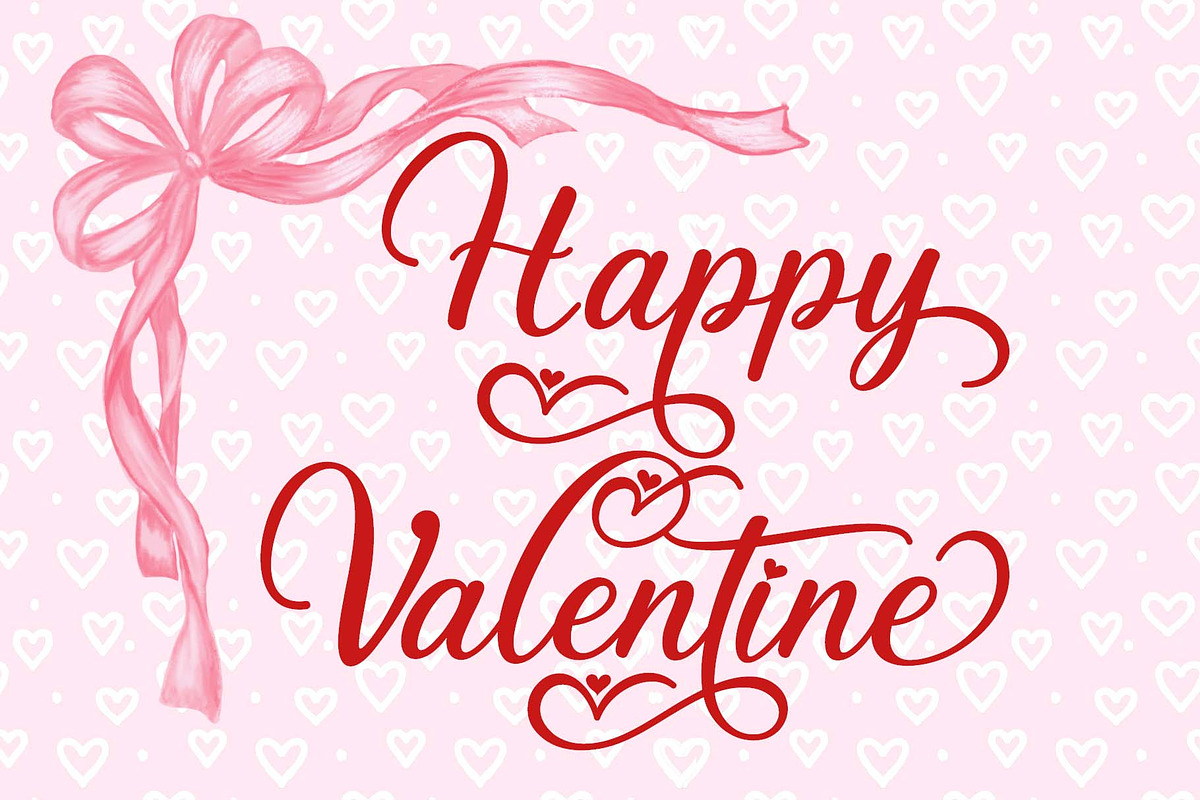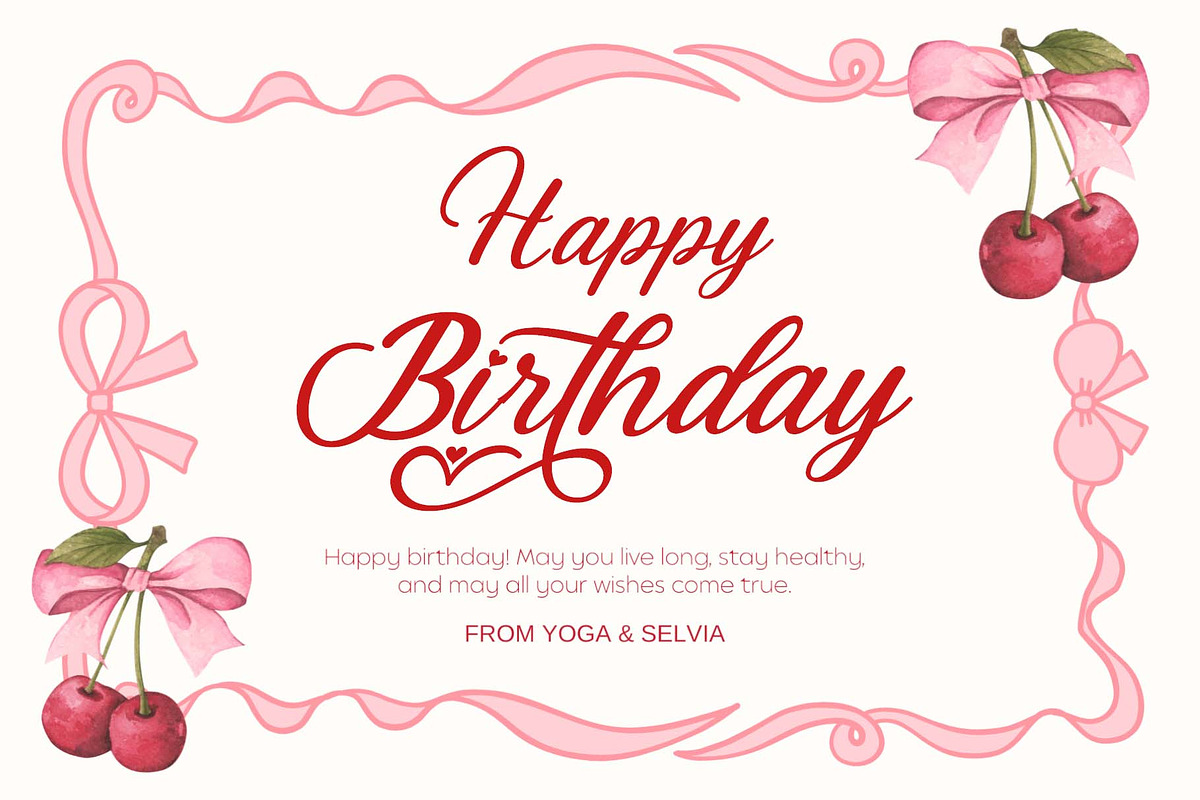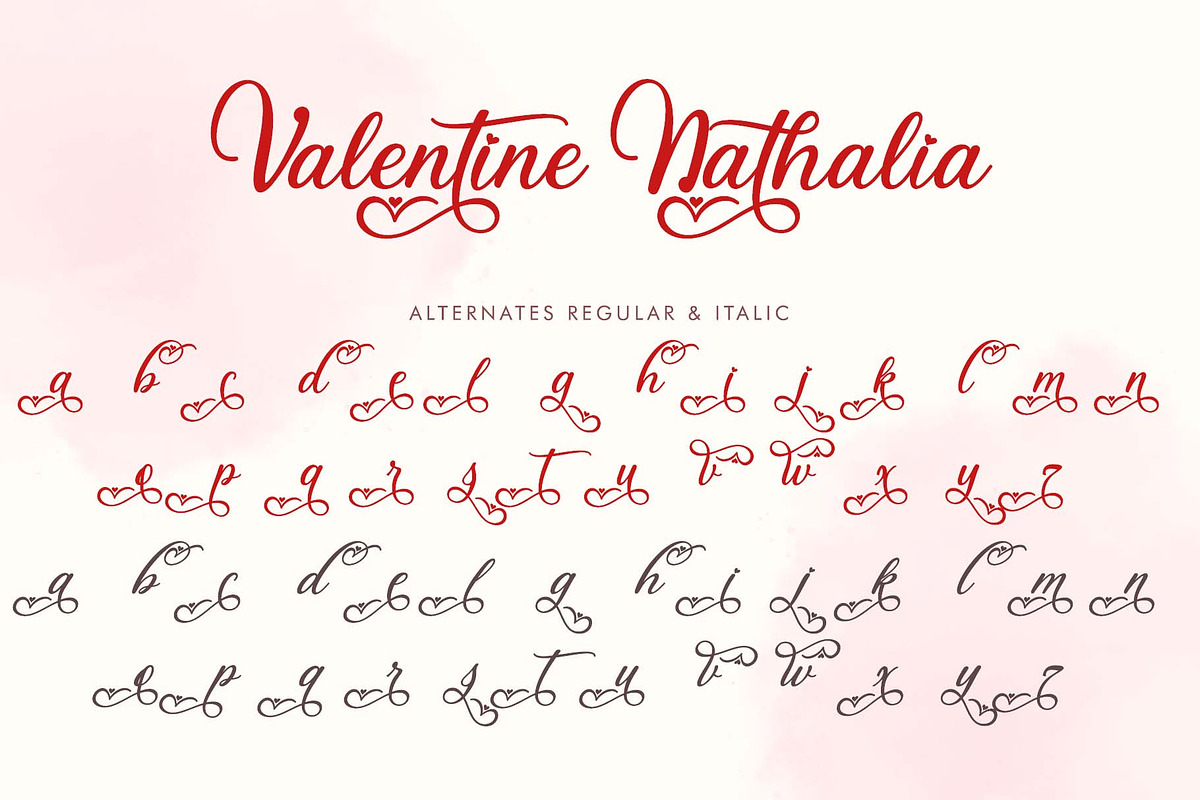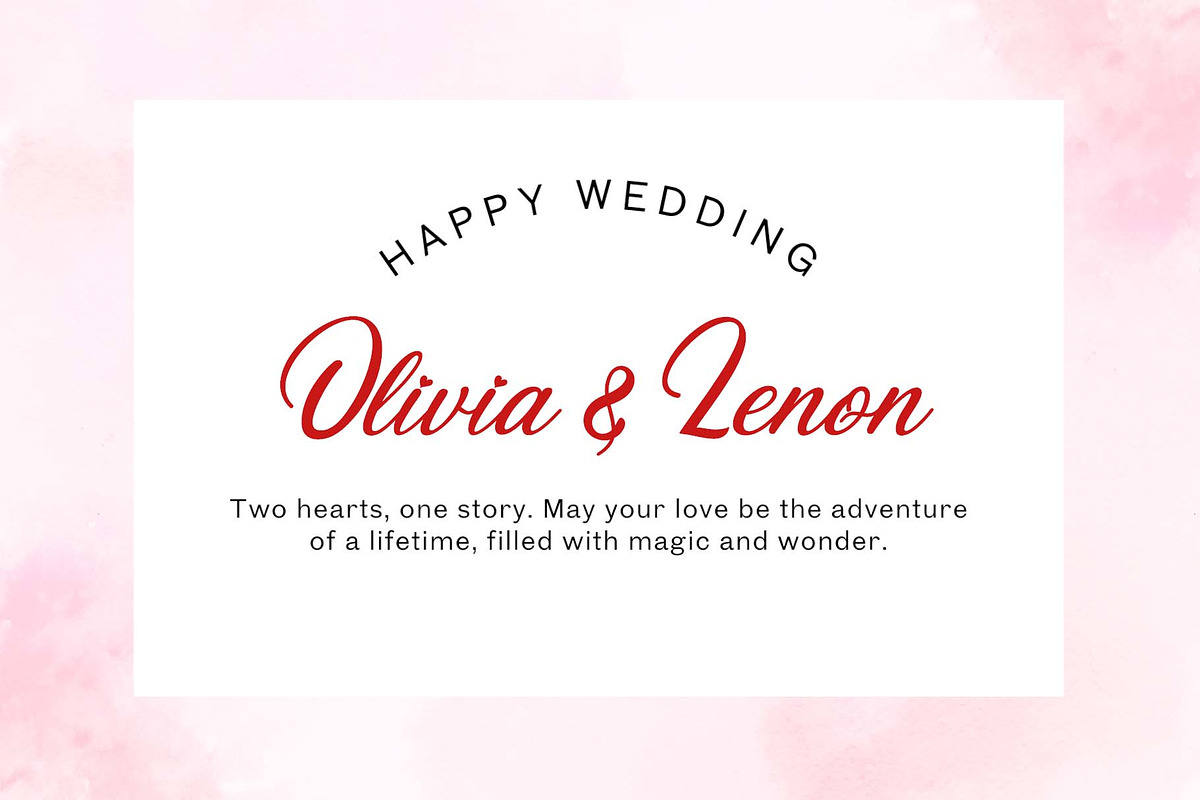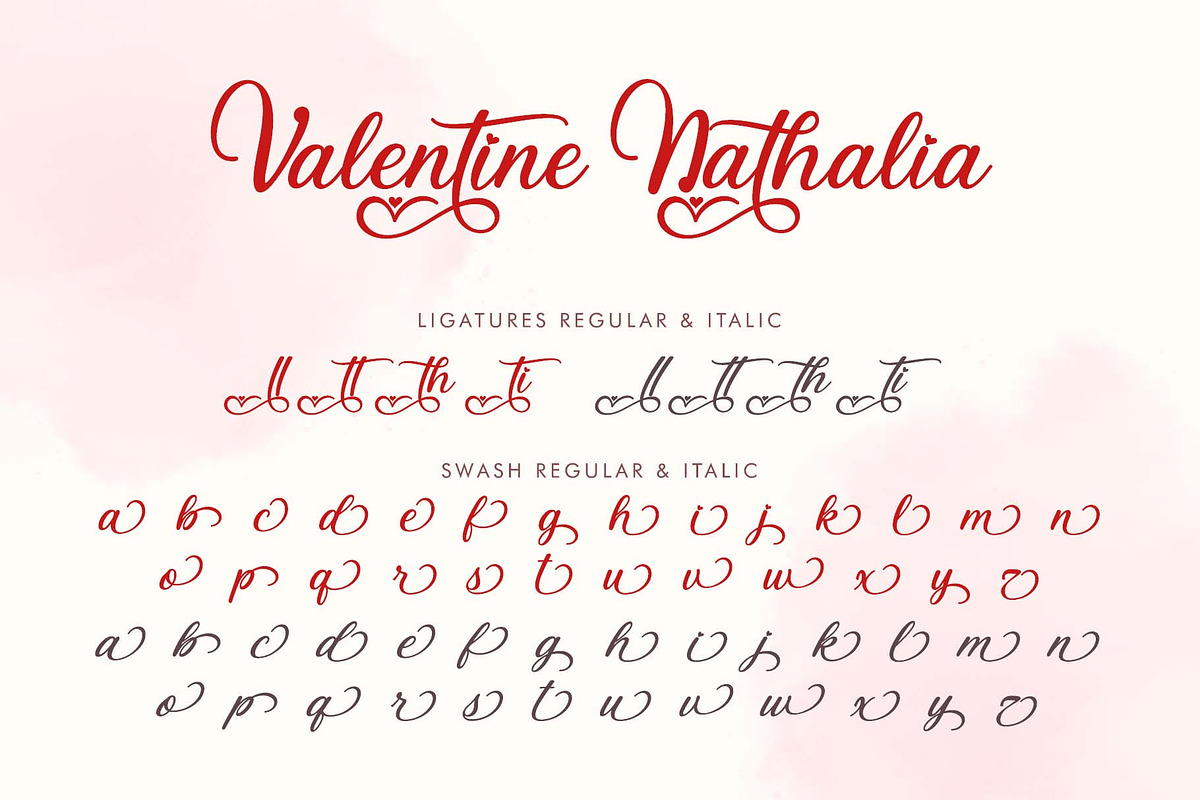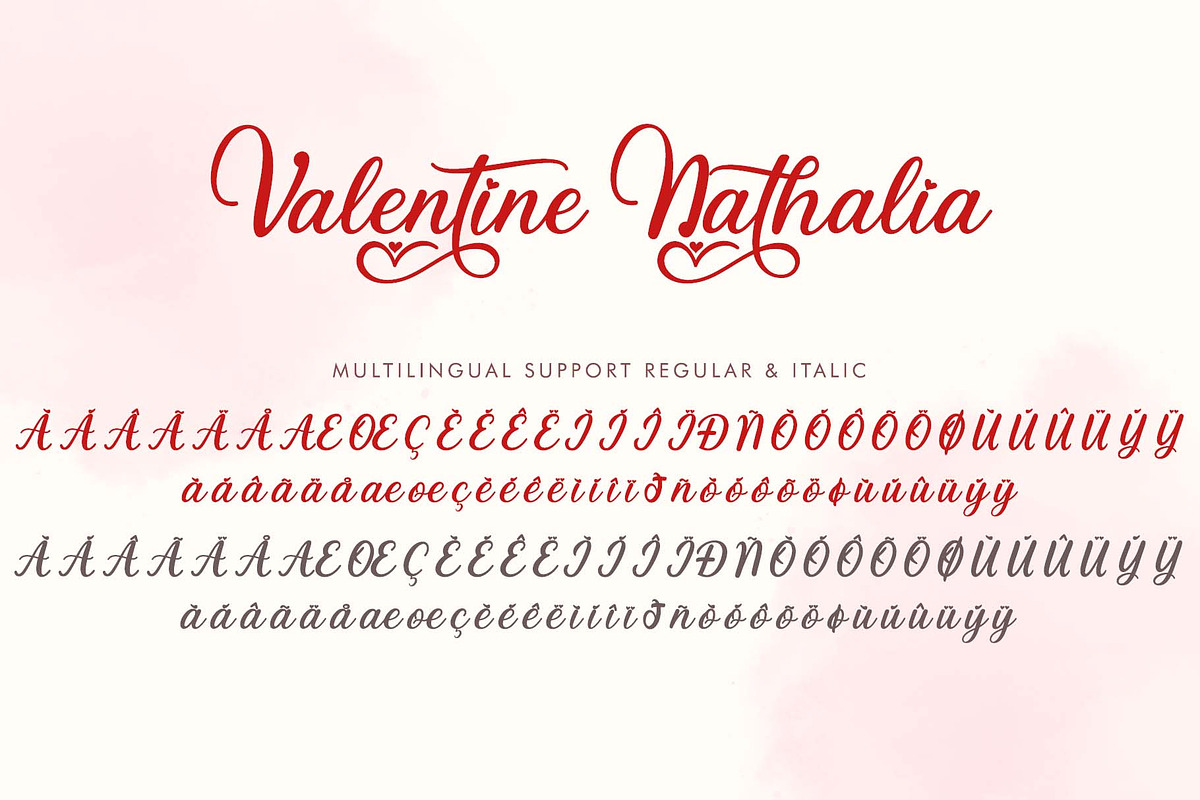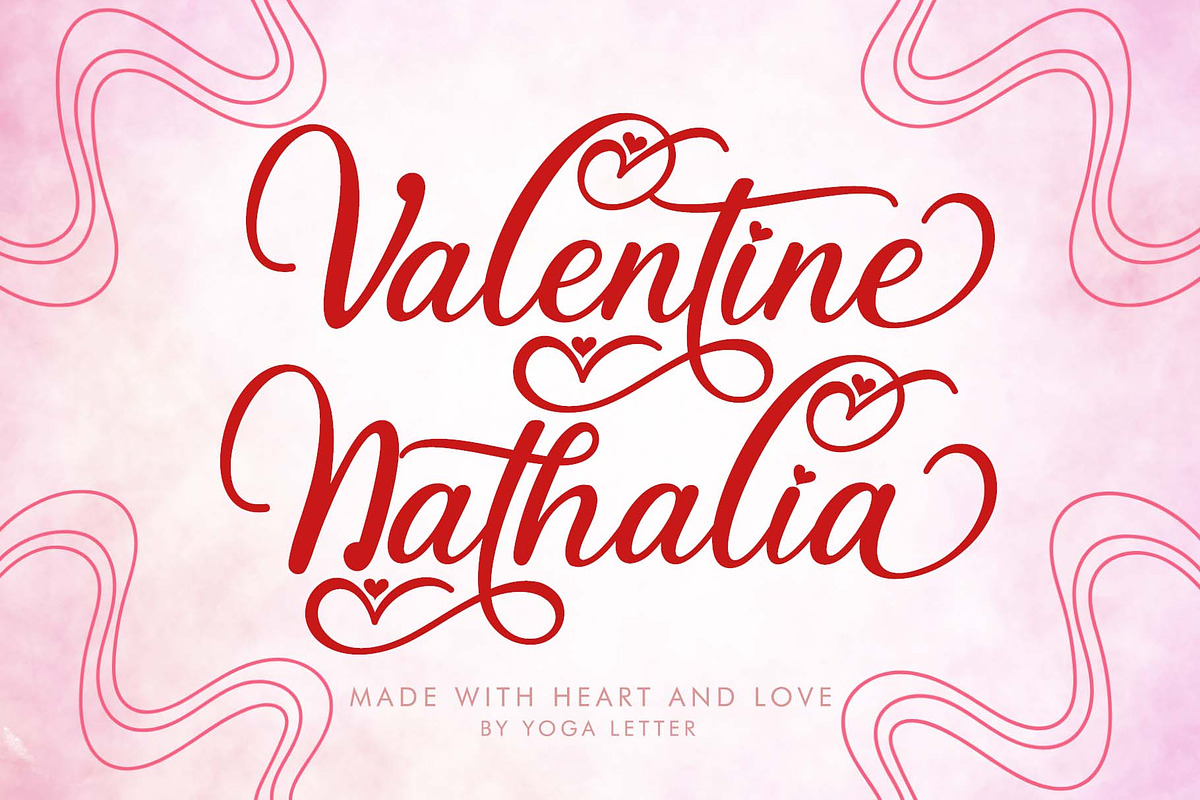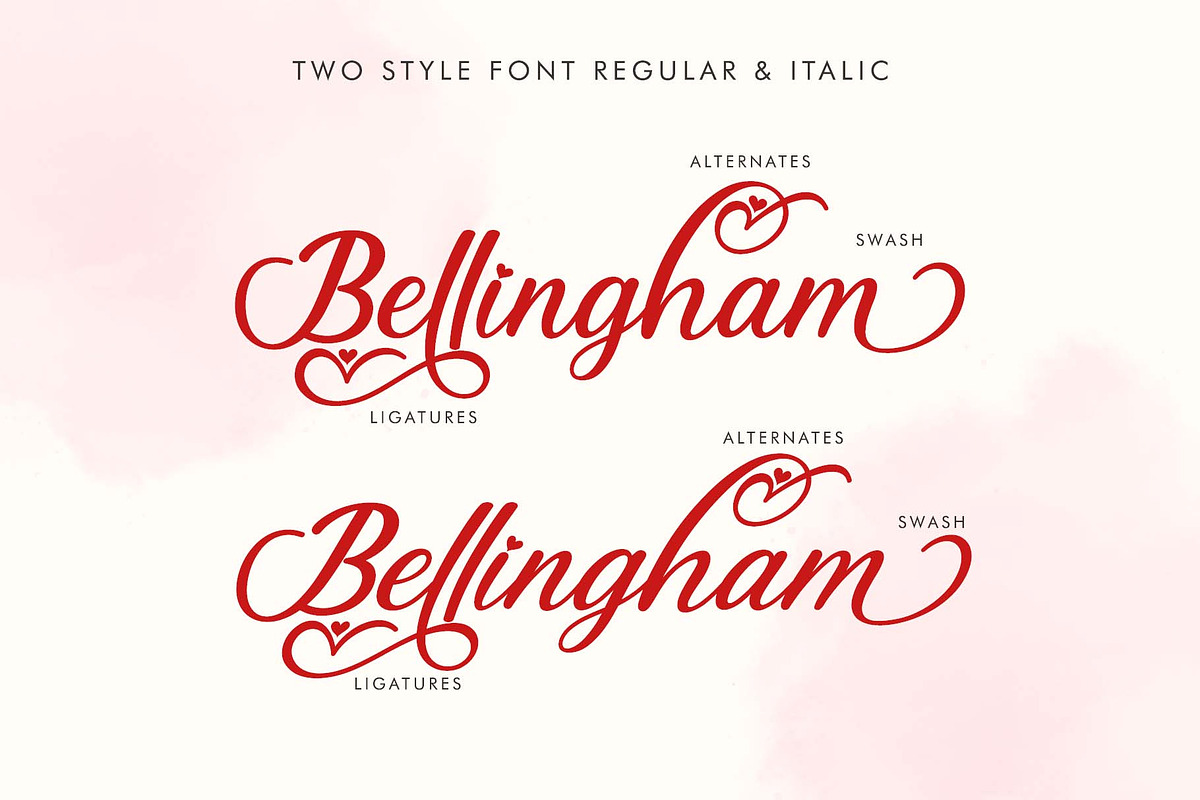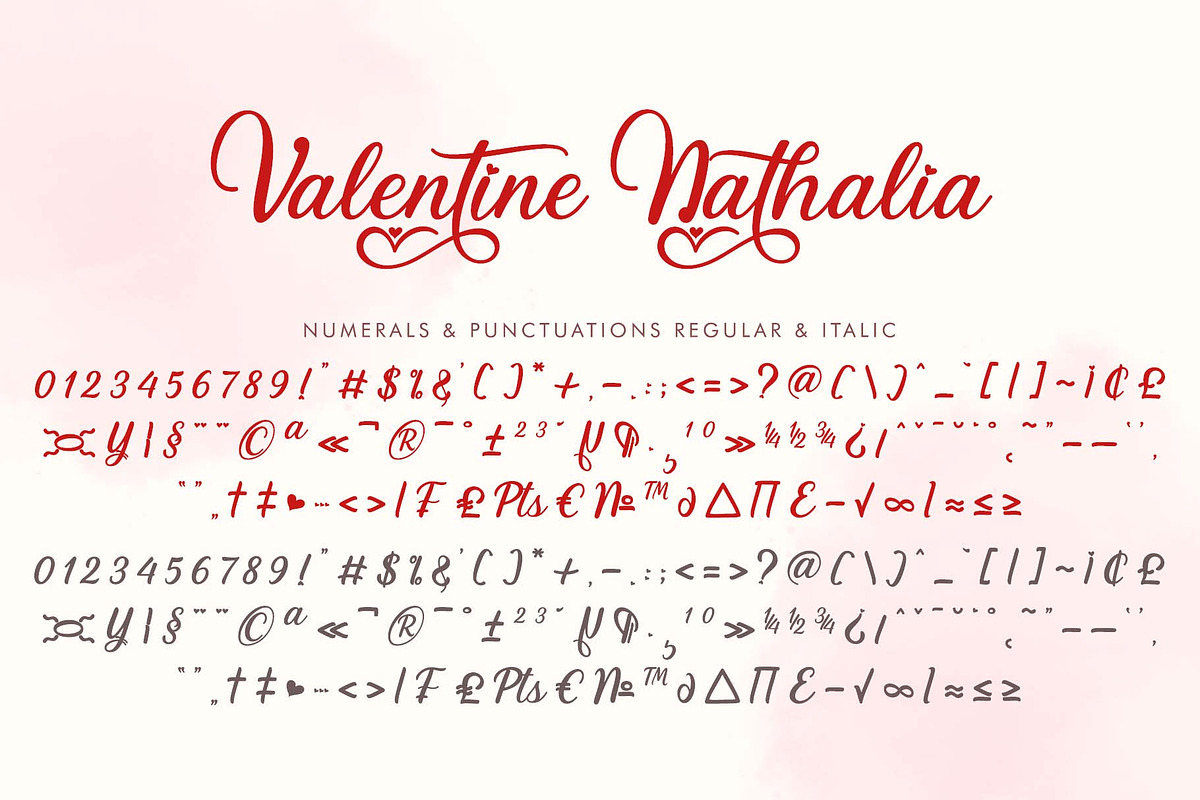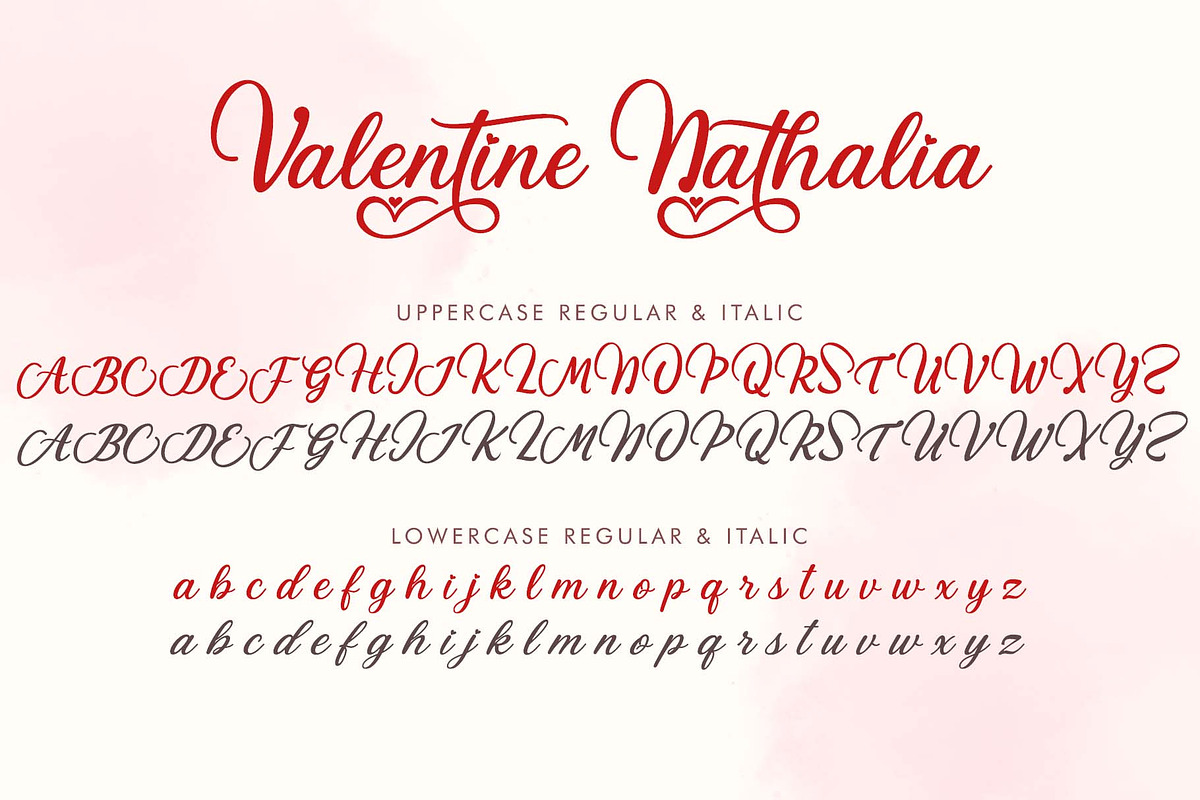
Valentine Nathalia
"Valentine Nathalia" is a beautiful and elegant handwritten font. It comes in regular and italic types, each featuring uppercase and lowercase letters, numerals, punctuations, ligatures, and multilingual support. It's perfect for Valentine's Day, Christmas, weddings, photography, spring, Easter, summer, holidays, vacations, invitations, congratulations, birthdays, prints, banners, posters, logos, and more.